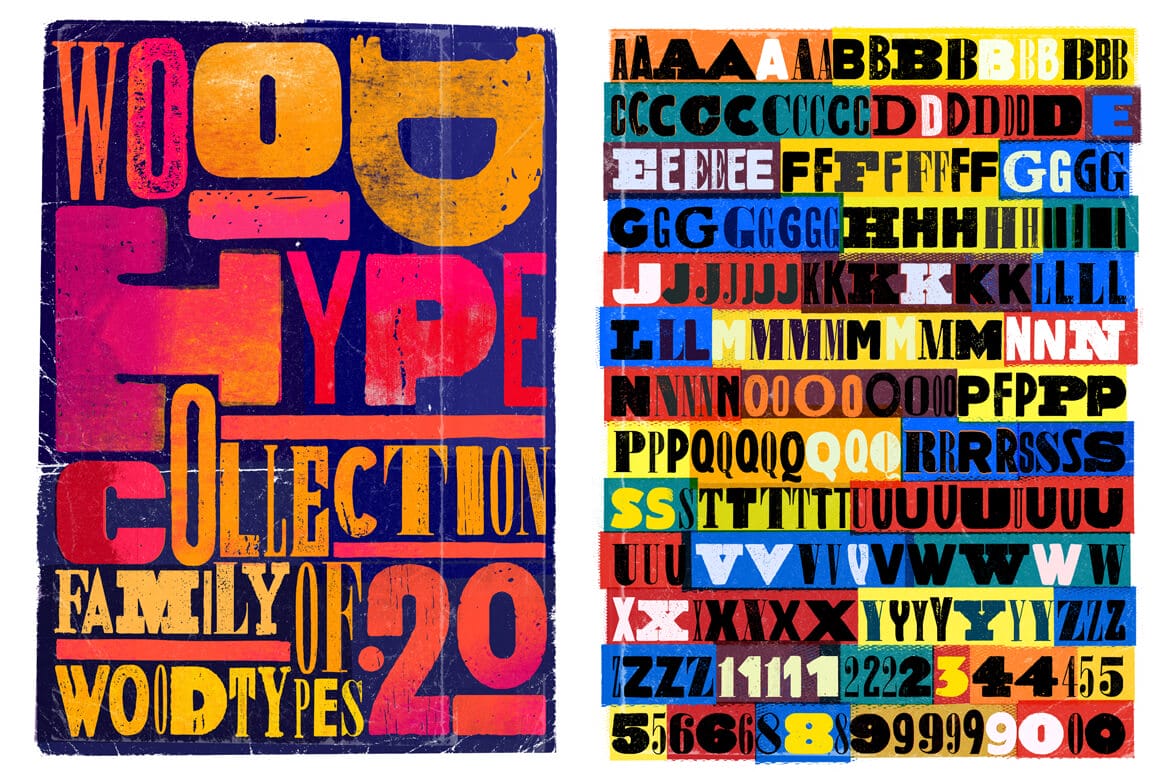
Inspired by wooden letter blocks for printing, the Woodtype Collection sports a whopping 20 different fonts. With 6000+ glyphs, and a regular and italics style, you can mix and match all you want to create the perfect piece of artwork. Offer up a truly unique design courtesy of these handmade typefaces from Mateusz Machalski.
- Create a truly warm and weathered look to your projects with this set of handmade typefaces.
- Mix and match from 20 different fonts to create a perfectly entertaining appearance.
- The Woodtype Font Family owes its inspiration to wooden letter blocks and other old technologies previously used for printing.
- With 6000+ glyphs, you pretty much have an infinite number of combinations to tell your story.
- Fonts come in both regular and italics styles.
- Turn words into art with the Woodtype Collection!